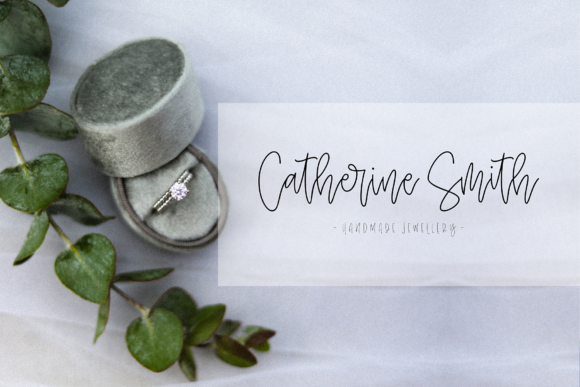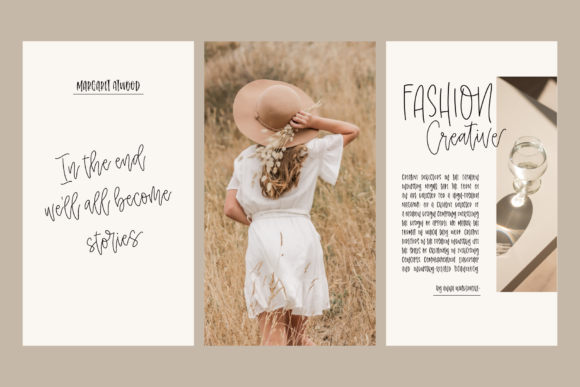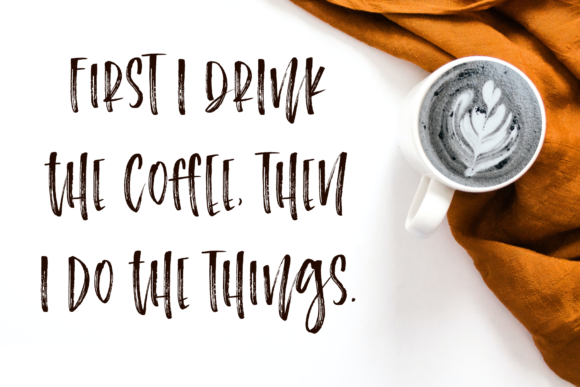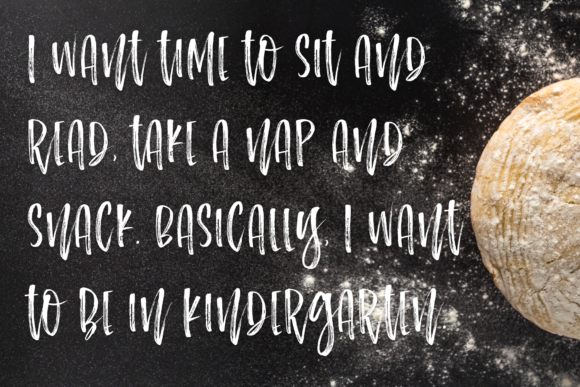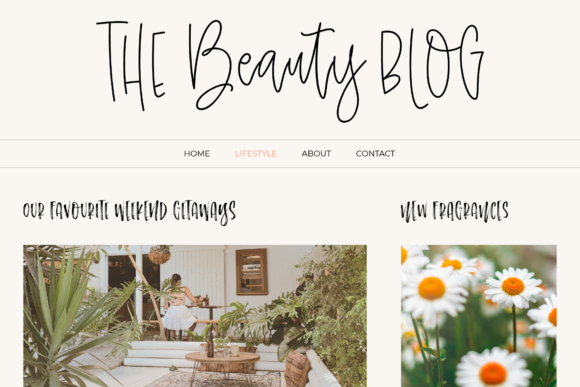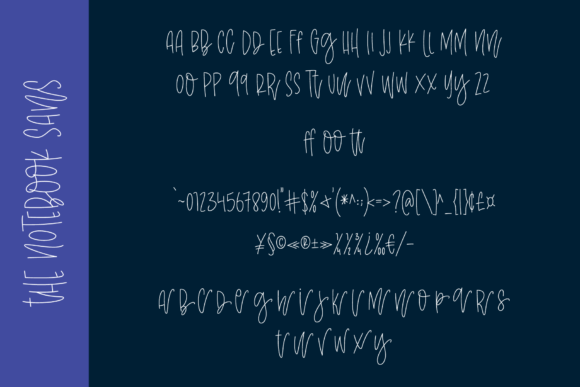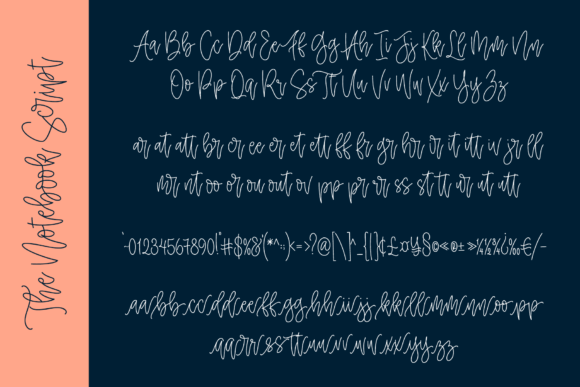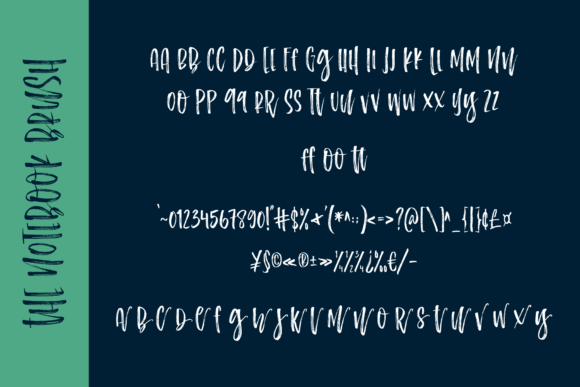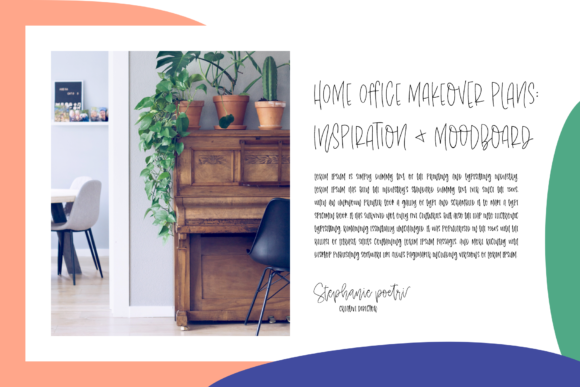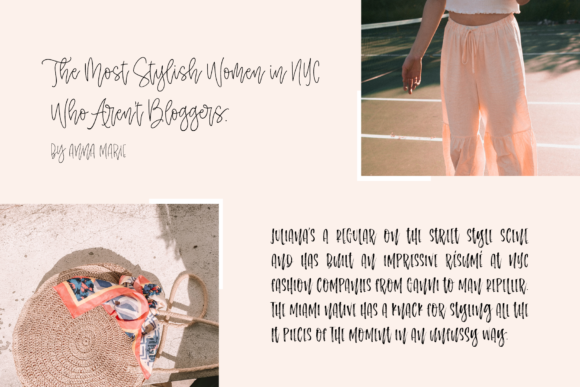
The Notebook Font
About The Notebook Font
The Notebook is a charming and versatile duo styled script font that adds a touch of elegance and playfulness to your creative projects. With its friendly and approachable style, this font breathes life into your designs and captures the essence of handwritten beauty.
The Notebook features two complementary script fonts, allowing you to mix and match different styles to create unique and eye-catching compositions. Whether you’re designing wedding invitations, greeting cards, logos, or social media graphics, The Notebook brings a touch of sophistication and personality to your work.
The first style of The Notebook is elegant and flowing, with smooth curves and graceful letterforms. It exudes a sense of romance and sophistication, making it perfect for wedding stationery, love notes, and any design that requires a touch of class.
The second style of The Notebook is more playful and whimsical, with a slightly bolder and looser feel. This style adds a fun and energetic element to your designs, making it ideal for children’s projects, creative branding, and anything that needs a lighthearted and joyful vibe.
Both styles of The Notebook come with a wide range of glyphs and swashes, thanks to its PUA encoding. This allows you to easily access and incorporate various decorative elements, alternate characters, and flourishes into your designs, adding even more versatility and customization options.
Whether you use The Notebook individually or combine both styles, this font brings a unique and personal touch to your creative projects. Its expressive and handcrafted appearance creates a sense of warmth and authenticity, making it a standout choice for capturing attention and leaving a lasting impression.
In conclusion, The Notebook is a friendly duo styled script font that breathes life into your creative ideas. Its elegance, playfulness, and PUA encoding make it a versatile tool for a wide range of designs. Add The Notebook to your collection and watch as it brings your creations to life with its charm and personality.